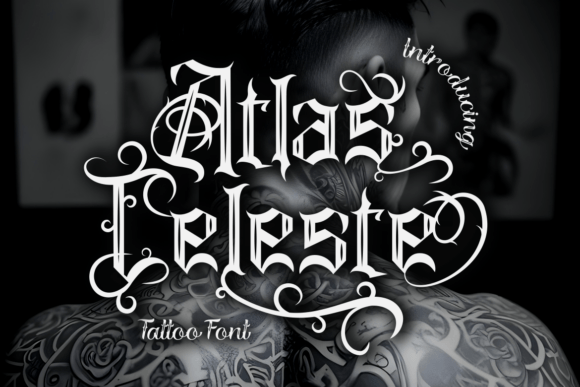
Unleash the Power of Ink: Discover Atlas Celeste Font
There’s something magical about sitting in a dimly lit tattoo parlor, surrounded by the hum of needles and the faint scent of ink. It’s a sensory experience that sparks the imagination and inspires creativity. As designers, we’re always on the lookout for the perfect font to capture that essence and bring our ideas to life. Enter Atlas Celeste Font, a bold and mysterious blackletter font that’s sure to leave a lasting impression.
Designed to evoke the intricate curves and sharp edges of classic tattoo art, Atlas Celeste Font is the perfect tool for designers seeking to make a strong, impactful visual statement. Whether you’re working on logos, posters, or film titles, this font adds a unique touch that’s both vintage and timeless. Its distinctive blend of traditional ink-like strokes and modern design elements makes it an invaluable asset for any designer looking to add a bold flair to their work.
Atlas Celeste Font Key Features
- Unique Characteristics: Atlas Celeste features a distinctive, hand-drawn design with a vintage aesthetic, making it perfect for creating unique and eye-catching typography in various design contexts.
- Language Support: The font includes support for multiple languages, including Latin, Cyrillic, and Greek scripts, allowing designers to create multilingual content with ease.
- Font Styles: Atlas Celeste is available in a range of styles, including Regular, Bold, Italic, and Bold Italic, providing designers with flexibility and versatility in their typography choices.
- Scalability: The font is designed to be highly scalable, ensuring that it remains legible and retains its unique character even at small sizes, making it ideal for use in various design applications.
Atlas Celeste Font Review
Overall, I’m quite impressed with the Atlas Celeste Font. Here are a few things that caught my attention:
- ✨ Elegant and refined design: The font has a sophisticated feel to it, making it perfect for high-end branding and design projects.
- ✨ Wide range of languages supported: Atlas Celeste Font covers a wide range of languages, including Latin, Cyrillic, and Greek, making it a versatile choice for global designs.
- ✨ High-quality font files: The font files are well-optimized, resulting in crisp and clear text, even at smaller font sizes.
- ⚠️ Limited font weights: While the font has a range of styles, the number of available font weights is somewhat limited.
- ⚠️ No italic styles: Unfortunately, Atlas Celeste Font does not include italic styles, which may be a drawback for some designers.
Overall, I think Atlas Celeste Font is a solid choice for designers looking for a high-quality, elegant font. While it may have some limitations, its strengths make it a great addition to any design project.
The Atlas Celeste font is ideal for:
- Graphic design projects, such as posters, flyers, and brochures.
- Typography-focused projects, such as book covers and magazine layouts.